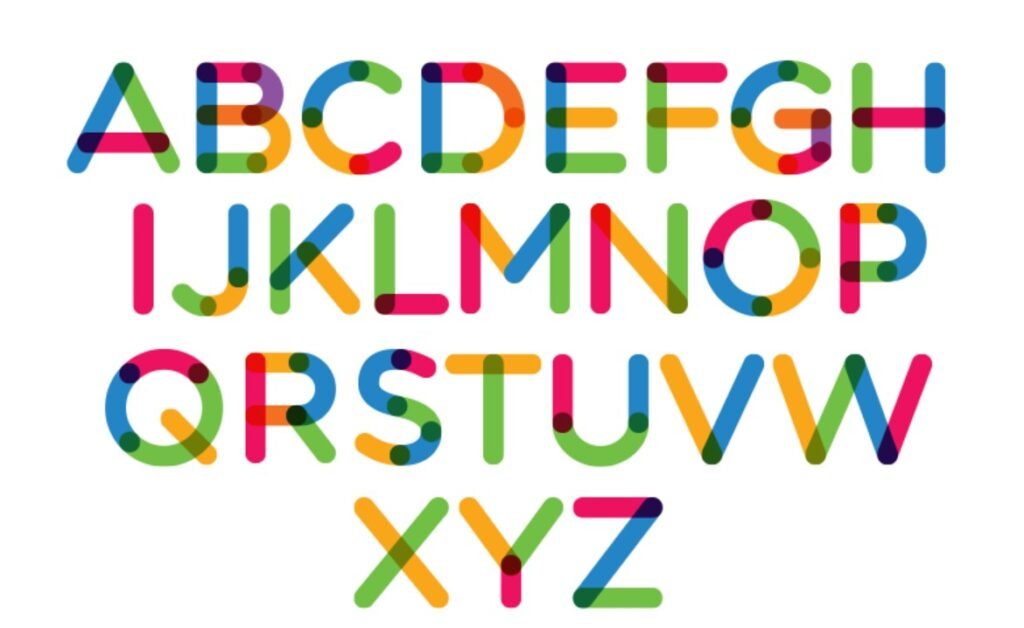
Multicolore Font is one of the most interesting colors that the graphic design world has to offer in the modern era of design where everything is visual. A font can modify the shape of a brand and the bold geometric Multicolore is no exception with its sharp and rich colors and vibrant colors. This font allows designers to make appealing graphics in a new and fresh way.
What is the Multicolore Font?
The Multicolore Font, an experimental multicolored typeface, was created by Ivan Filipov. Unlike the usual monochrome fonts, Multicolore uses color in its characters and makes them more than just letters. It was designed as an attention grabber and a way to unleash creativity, allowing designers to capture movement and energy in their designs.
Widely known for its geometric letterforms and bold use of color, this Multicolore typeface works great on posters, headlines, and attention grabbing branding pieces. Though not a standard font file like OTF or TTF, it IS available in EPS or AI formats which can be customized in Adobe Illustrator.
Key Features of the Multicolore Font
The Multicolore regular font offers several distinctive features that set it apart from standard fonts:
- Vibrant Multicolor Design: Each character features a lively combination of colors that grab attention and convey excitement.
- Geometric Letterforms: The font uses clean, geometric shapes that feel modern and tech-forward.
- Perfect for Display Use: Best used in large-scale formats such as posters, headers, or promotional graphics.
- Vector-Based Format: Delivered as EPS and AI files, allowing infinite scalability and detailed customization.
- Customizable: You can change the color palette, rearrange shapes, or tweak letters to match your project’s style.
Applications of the Multicolore Font
Thanks to its colorful and expressive nature, the Multicolore Pro Font is ideal for high-impact visual applications:
- Posters & Advertising: Stand out in any environment with a bold, multicolored statement.
- Packaging Design: Create fun and energetic labels for food, beverages, or youth products.
- Social Media Graphics: Perfect for YouTube thumbnails, Instagram highlight covers, or digital ads.
- Merch & Apparel: Make a splash on T-shirts, tote bags, or promotional swag.
- Editorial Design: Bring excitement to magazine covers, book titles, or special features aimed at young audiences.
Conclusion: Multicolore Font
For those designers who want to move away from the typical black and white fonts, the Multicolore Font is a type that is vibrant, dynamic, and fully creative. With features such as its multicolor, vector-based style, it is perfect for modern marketing, digital content, editorial designs, and more.
Whether you’re designing a new brand, a promotional poster, or even package design, Multicolore lets you convey your ideas and messages with unmatched creativity and color.